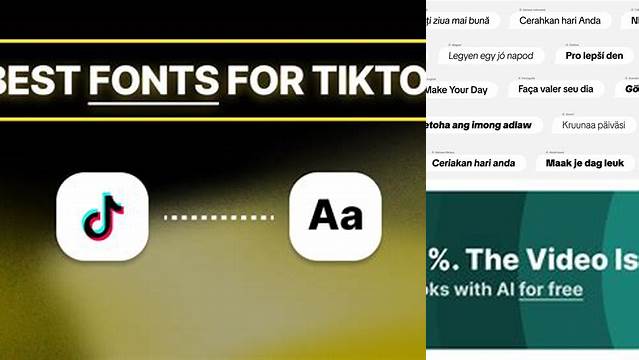
Unlock Viral Fonts: TikTok Edit Text Styles Revealed
Hey guys, ever wondered how some TikTok edits just pop? You know, the ones with text that perfectly matches the vibe, tells the story, and keeps you hooked? A huge part of that magic, believe it or not, comes down to the fonts used in TikTok edits. It's not just about what you say, but how you say it visually! Picking the right font can totally transform your content from just another video into a scroll-stopping masterpiece. So, if you're ready to level up your TikTok game and make your videos truly unforgettable, stick around. We're about to dive deep into the world of TikTok fonts, uncovering secrets, sharing tips, and making sure your edits never look basic again. Let's get creative!
Mastering TikTok's Built-in Fonts: Your First Step to Stellar Edits
When we talk about fonts used in TikTok edits, the first place many of us start is right within the TikTok app itself. TikTok, bless its heart, offers a decent selection of built-in fonts, and honestly, they're a fantastic starting point, especially for beginners or when you need a quick, no-fuss edit. You've probably seen them everywhere: the classic bold sans-serifs, the playful scripts, and the more modern, clean options. These aren't just there for show; understanding how to effectively use TikTok's built-in fonts is crucial for creating cohesive and engaging content without needing to jump into external editing apps right away. Think of them as your core toolkit. Each font has a distinct personality, and learning to match that personality with your video's message is key. For example, a sharp, clean font might be perfect for a quick tutorial or an informative fact, while a whimsical, handwritten style could perfectly complement a lighthearted, funny skit. Don't underestimate the power of these pre-loaded options; they're designed for easy readability on mobile screens and integrate seamlessly with TikTok's various text effects and animations. Plus, sticking to TikTok's native fonts ensures maximum compatibility and consistent display across different devices and operating systems. Many content creators achieve viral success using only these native fonts, proving that it's not always about having the most unique font, but rather about using the available tools smartly and creatively. So, before you venture out into the wild world of custom fonts, spend some time exploring and experimenting with what's already at your fingertips. Get comfortable with their appearances, understand their limitations, and learn to apply them in a way that enhances your story, rather than just filling space. This foundational knowledge will serve you well, no matter how complex your future TikTok edits become, setting a strong basis for more advanced text work down the line. It's all about making your message clear and visually appealing, guys, and TikTok's native fonts are your first, best friend in that journey.
Why Font Choice Matters So Much in Your TikTok Edits
Let's get real, guys: choosing the right fonts used in TikTok edits isn't just a minor detail; it's a game-changer for your content's impact and engagement. Think about it β your font choice is a silent storyteller, a visual cue that instantly communicates the mood, tone, and even the professionalism of your video before someone even reads a single word. Imagine trying to share a serious, informative piece of content using a super bubbly, childish font. It just wouldn't land, right? The dissonance would instantly undermine your message, making viewers question the credibility or even the intention of your video. Conversely, using a sleek, modern font for a high-energy dance challenge might feel too stiff. This is why the selection of fonts for your TikTok edits is an art form in itself. Itβs about creating an immediate connection, building anticipation, and guiding your audience's emotional journey. A well-chosen font can make your text more readable, emphasize key points, and draw the viewer's eye exactly where you want it. It contributes significantly to your overall aesthetic, helping to define your personal brand or niche on the platform. If you're consistently using fonts that align with your content's theme and your unique style, you're not just making pretty videos; you're building a recognizable brand identity that resonates with your audience. Moreover, in a fast-paced environment like TikTok, where attention spans are fleeting, your font choice can be the difference between a viewer scrolling past or stopping to engage. Clear, compelling, and aesthetically pleasing text can grab attention in those crucial first few seconds, encouraging viewers to watch till the end, comment, or even share. It's an often-overlooked but incredibly powerful tool in your content creation arsenal, allowing you to fine-tune the emotional impact and perceived quality of every single frame. So, next time you're about to slap some text on your video, pause and ask yourself: Is this font truly enhancing my message and engaging my audience? Because, trust me, in the world of viral TikTok edits, every detail, especially your font, counts enormously towards standing out from the crowd and leaving a lasting impression on your viewers.
Discovering Popular Aesthetic TikTok Fonts: Setting Your Vibe
If you're aiming for a specific aesthetic with your TikTok edits, then diving into the world of popular aesthetic fonts is absolutely essential, guys. This isn't just about picking any font; it's about selecting the perfect typeface that instantly communicates your desired mood or style β whether you're going for a 'clean girl' minimalist look, a 'dark academia' scholarly vibe, a whimsical 'cottagecore' fantasy, or something entirely unique. The right font acts like a visual shorthand, telling your audience what your content is about and what kind of emotions to expect. For example, the 'clean girl' aesthetic often favors sleek, thin sans-serifs that convey sophistication and simplicity, while 'dark academia' might lean towards classic serifs with a slightly vintage feel, evoking old books and intellectual pursuits. Fonts used in TikTok edits for these aesthetics aren't chosen randomly; they're meticulously selected to align with a broader visual theme, ensuring every element of your video contributes to a cohesive and immersive experience. Finding these popular aesthetic fonts often means looking beyond TikTok's built-in options and exploring custom font libraries. Websites like DaFont, Google Fonts, and Font Squirrel become your treasure chests. You'll want to experiment with different categories β script, display, serif, sans-serif β to find what truly resonates with your chosen aesthetic. Itβs also about understanding the subtle nuances: a slightly distressed texture might fit a 'grunge' aesthetic, whereas a perfectly smooth, rounded font could be ideal for 'cute and cozy' content. The key is consistency; once you've identified a few fonts that embody your aesthetic, try to stick with them across your videos. This helps build a recognizable brand identity and allows your audience to quickly identify your content in their feed. Don't be afraid to mix and match within your aesthetic, perhaps using one font for titles and another for body text, as long as they complement each other and maintain the overall vibe. Remember, the goal is to create a visual language that speaks volumes about your content, making it instantly appealing to those who share your aesthetic preferences. So go ahead, experiment with those elegant serifs, charming scripts, and bold displays until your TikTok edits not only look amazing but also perfectly feel your chosen aesthetic, drawing in your target audience with every beautifully lettered frame.